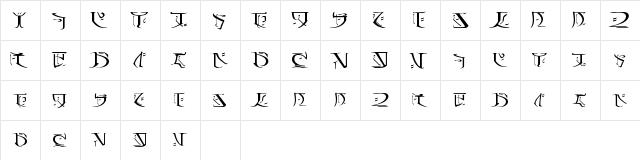
Falmer Regular
| Foundry | Neale Davidson |
| Designer | Neale Davidson |
Design Context for Falmer Typeface
Falmer is a composed and adaptable typeface that performs quietly and consistently across a wide range of design contexts.